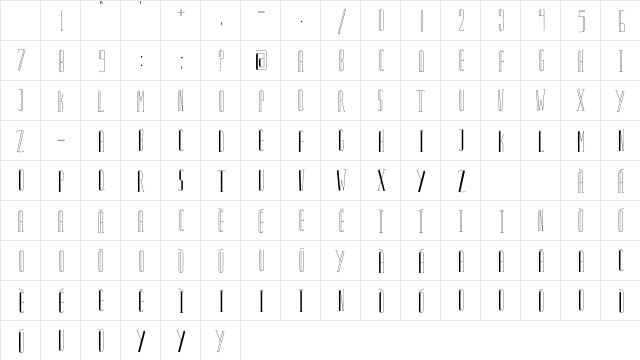
Primova is built around its visual character rather than neutral utility - its distinctive forms are designed to make an impression at display sizes.
Font Pairing: Pair with a clean neutral sans-serif for body copy to let Primova's character lead without overwhelming the composition.
Pro Tip: Use Primova exclusively at display sizes - it was designed to be seen, not read at length. Let a neutral companion handle body copy.